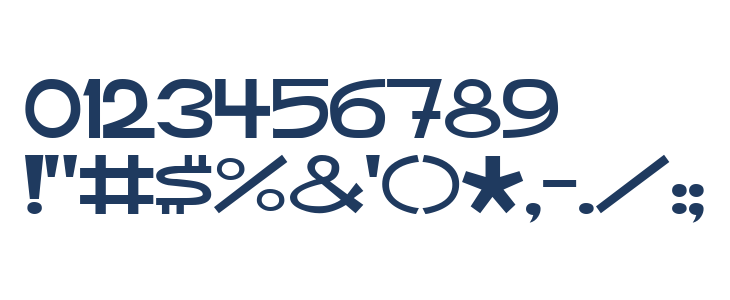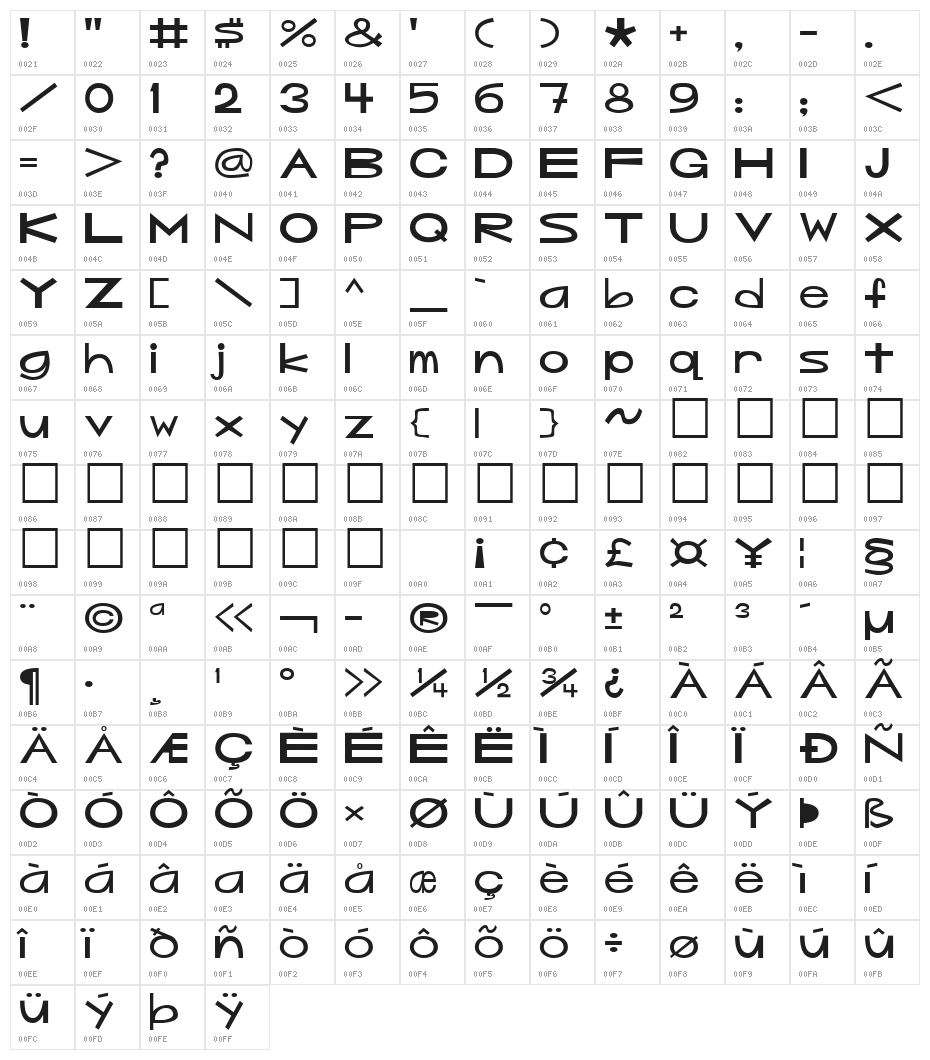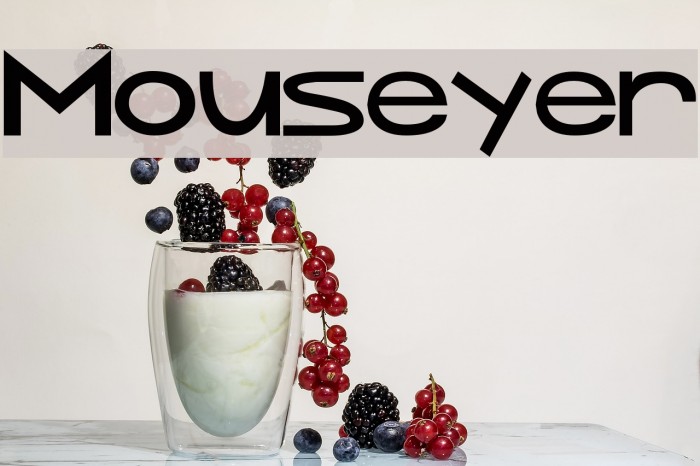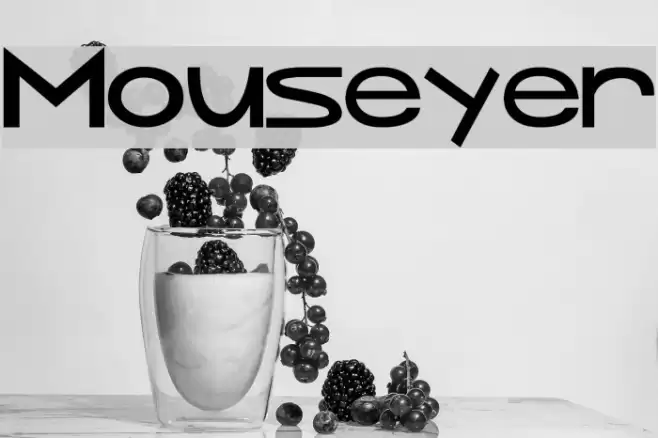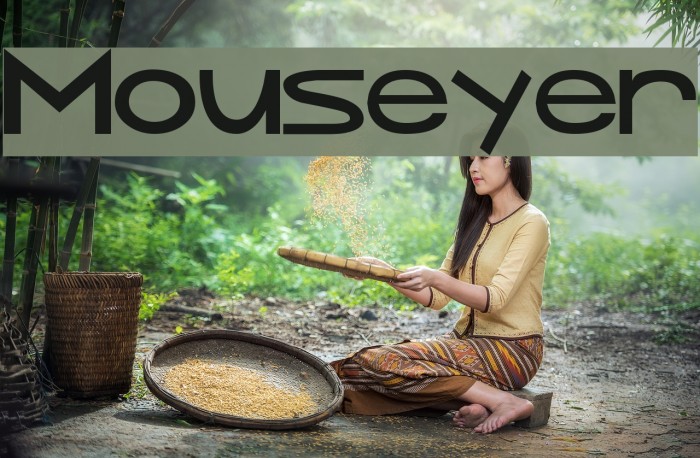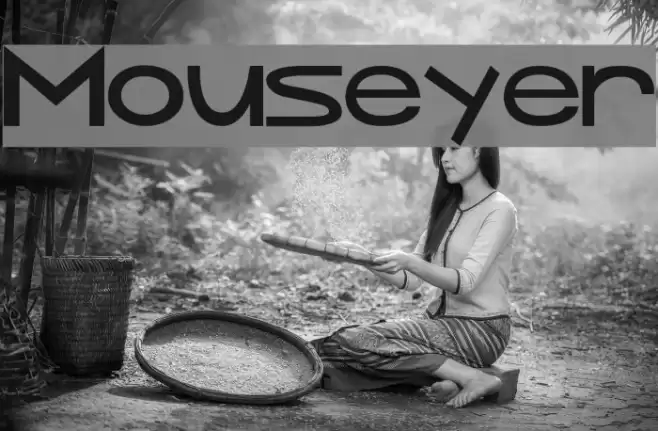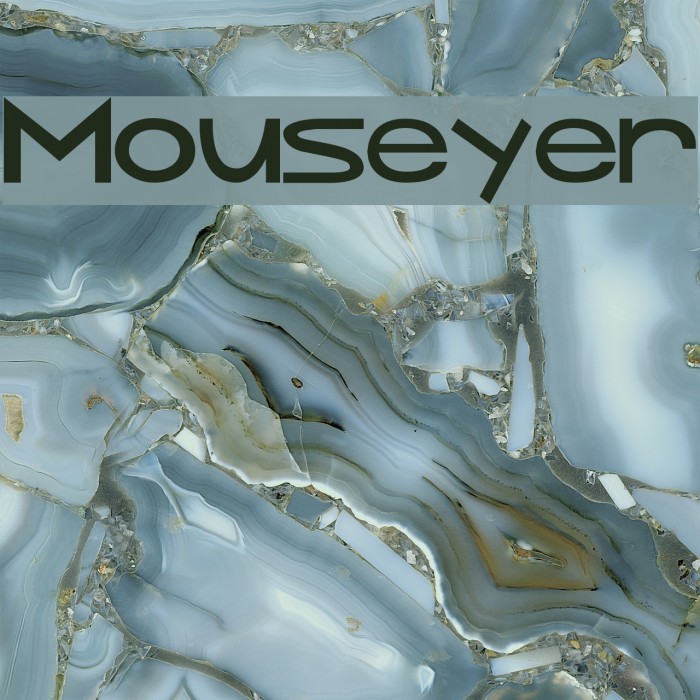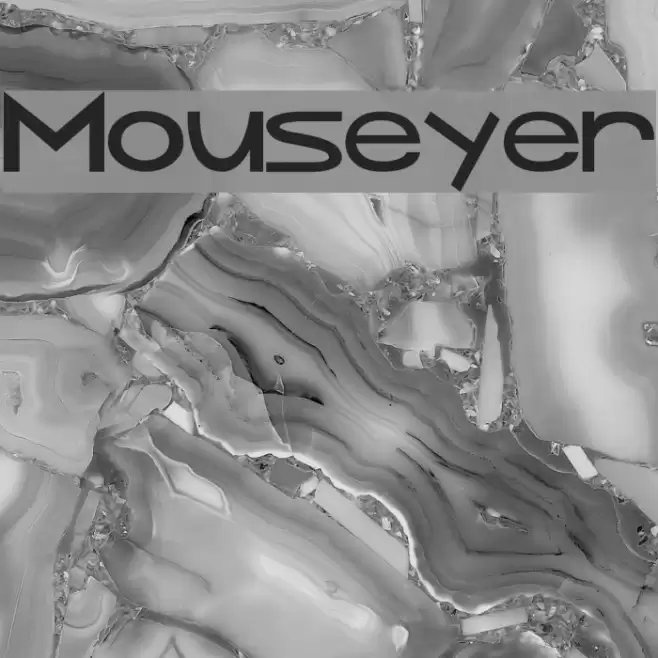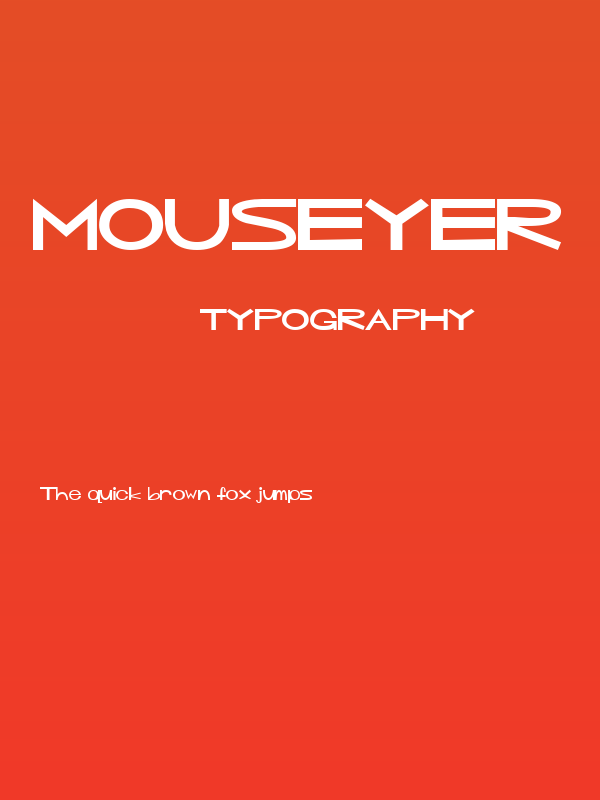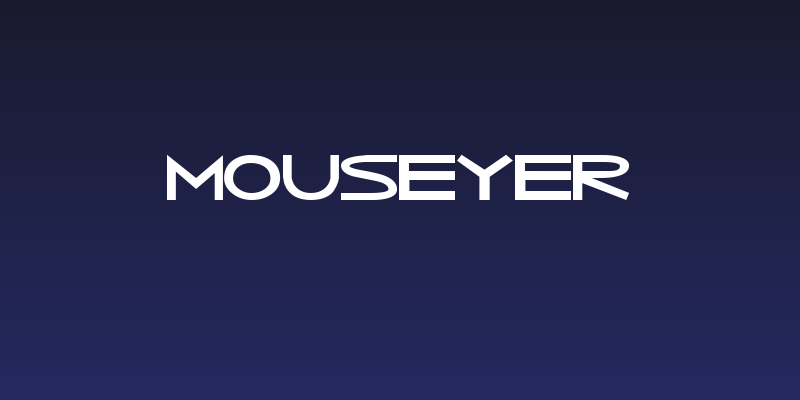
Mouseyer Font
Mouseyer Description
This font exhibits a bold and modern aesthetic with a geometric flair. The uppercase letters are characterized by sharp angles and clean lines, giving a futuristic feel. The lowercase letters maintain a consistent style, with rounded edges that contrast the angular uppercase. Numbers and special characters follow the same design principles, ensuring uniformity across all glyphs. The font's unique style is eye-catching, making it suitable for creative and contemporary designs. Its boldness and distinct character shapes make it stand out, ideal for projects that require a strong visual impact.
| Proposed Projects | Ideal for branding, advertising, posters, and digital media where a modern and bold statement is needed. |